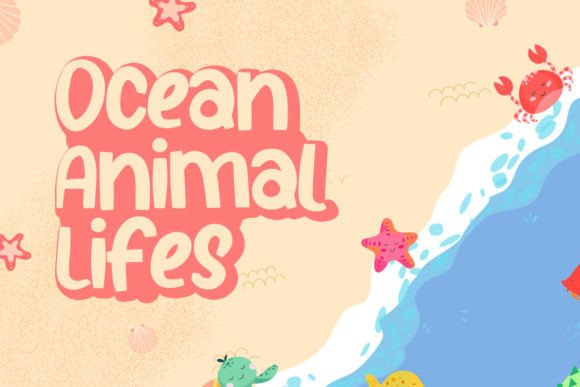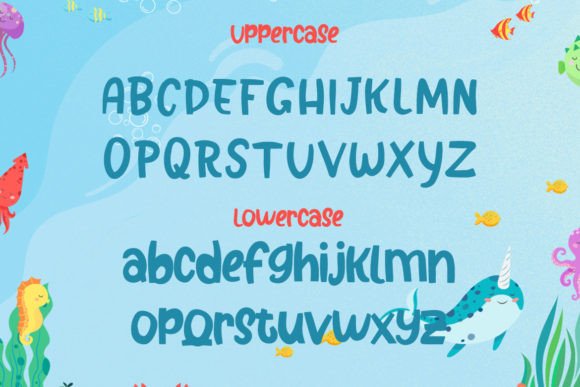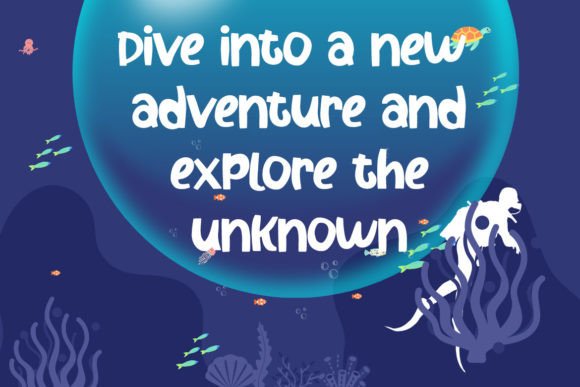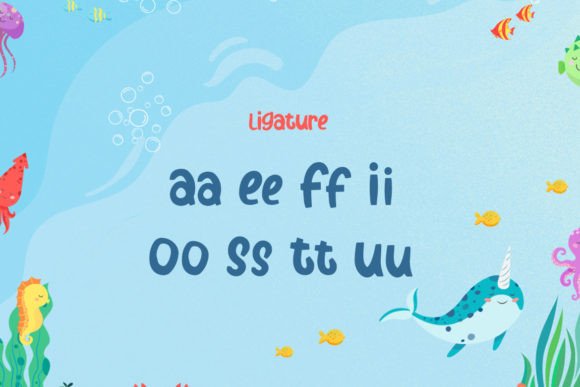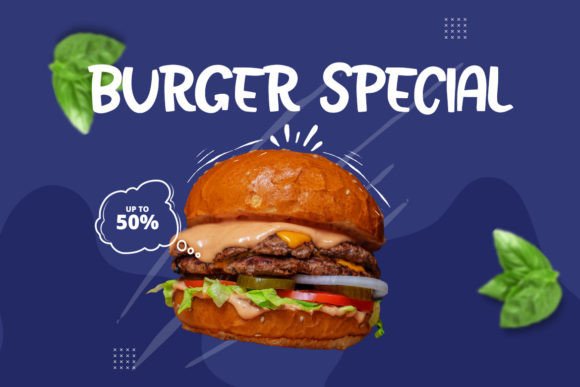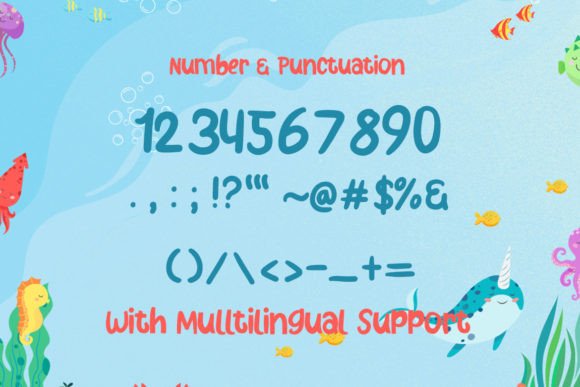
Introduction to Sharkido Font
Sharkido is a fun and vibrant display font that adds a touch of sweetness and cheerfulness to your designs.
Its smooth and rounded letterforms create a sense of playfulness and joy, making it an ideal choice for candy packaging, greeting cards, and other lively design projects .